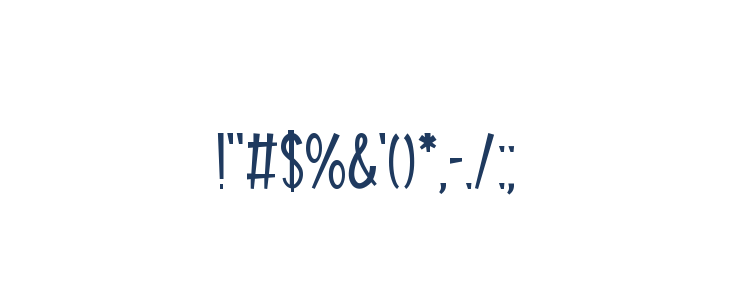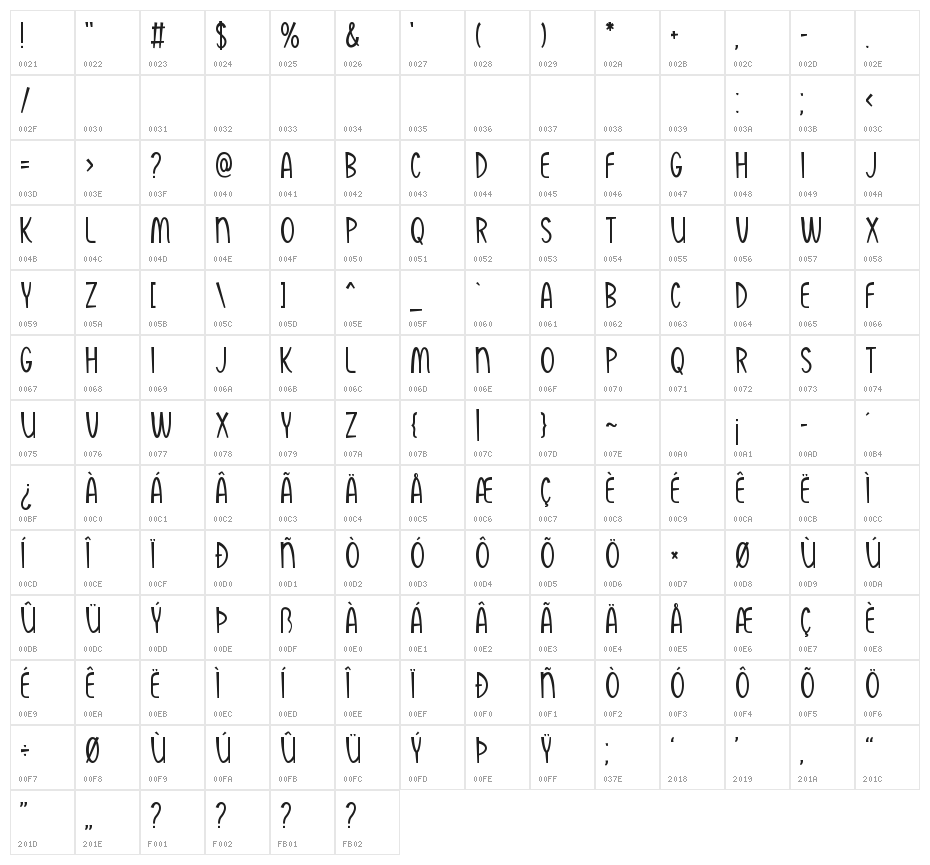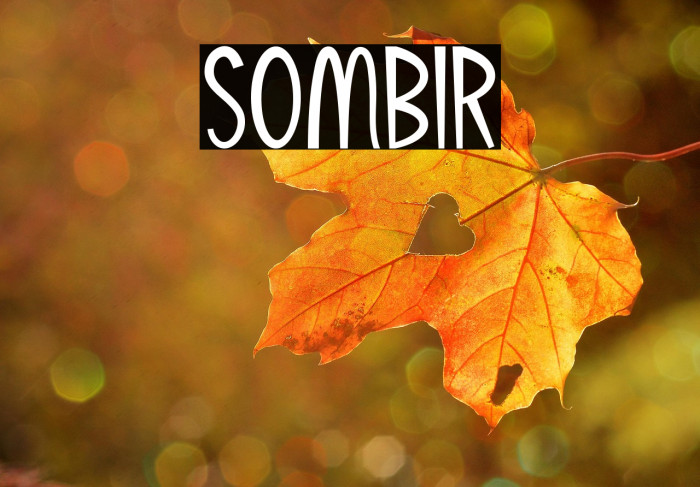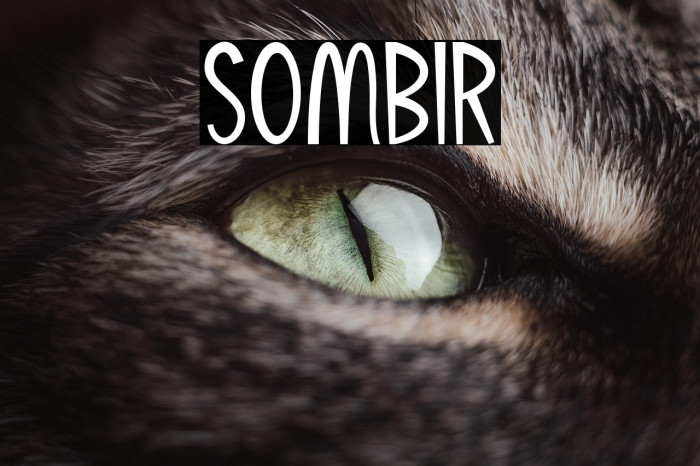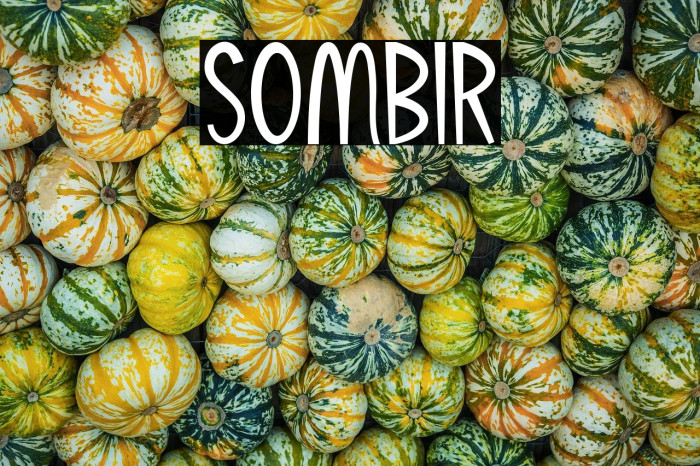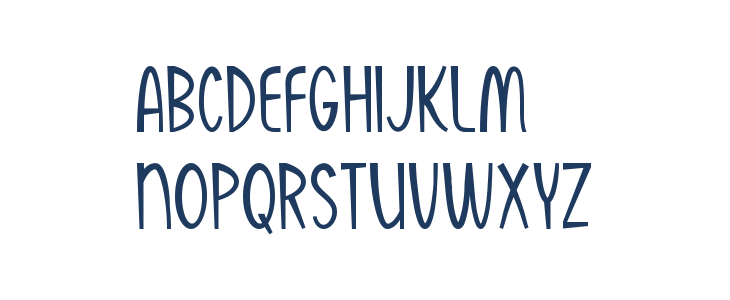
Sombir Font
Sombir Description
This font features a playful and informal style with tall, narrow characters that have a slight whimsical flair. The strokes are consistent in width, giving it a uniform appearance, while the rounded edges add a friendly touch. The uppercase letters are particularly elongated, creating a sense of height and elegance. The lowercase letters maintain a similar style, ensuring readability and coherence. The numerals and special characters follow the same design principles, making them blend seamlessly with the alphabet. This font's unique character makes it suitable for creative and casual applications.